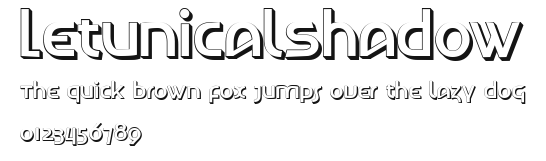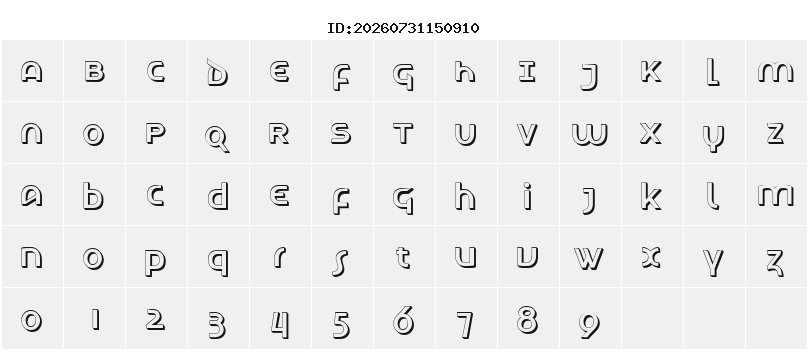
• Font Name: LetunicalShadow
• Full Font Name: LetunicalShadow
• PostScript Name: LetunicalShadow
About LetunicalShadow.ttf
LetunicalShadow.ttf is a modern, elegant sans-serif font designed for ultimate readability and visual harmony. Perfect for branding, headlines, web design, and print materials.